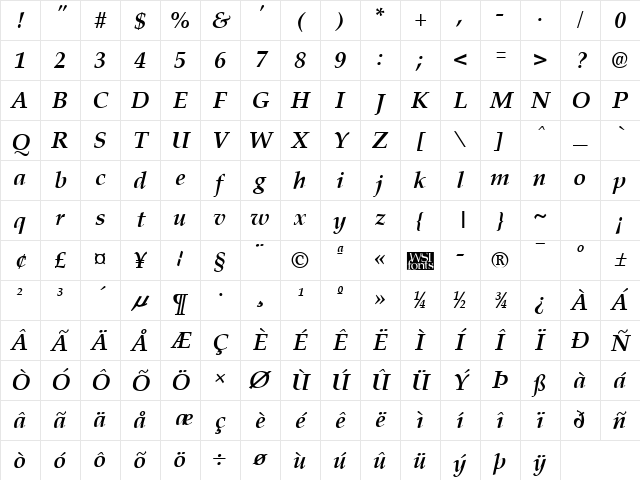
Palisade Bold Italic
Palisade Bold Italic Font Preview
Design Context for Palisade
Palisade is a composed and adaptable typeface that performs quietly and consistently across a wide range of design contexts. The slanted form adds forward momentum and visual energy. Its bold stroke weight gives it real presence on the page.
Pro Tip: Use Palisade for emphasis, pull quotes, and subheadings where its slanted energy can add rhythm to the layout.